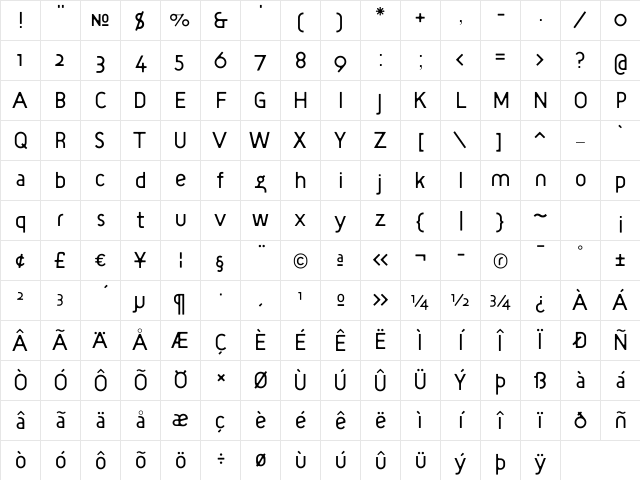
TargetLight Regular Free Font
TargetLight Regular
TargetLight Family
Design Context for TargetLight
TargetLight is a composed and adaptable typeface that performs quietly and consistently across a wide range of design contexts. Its slender proportions lend an understated elegance to any composition.